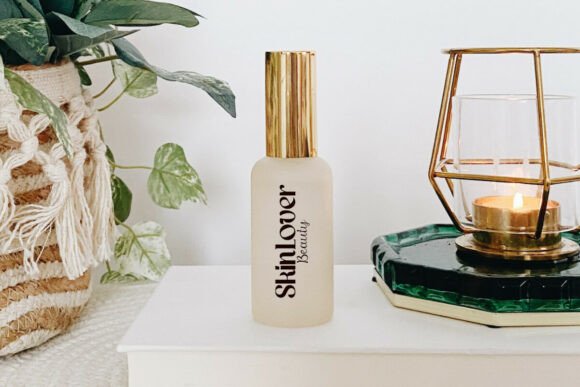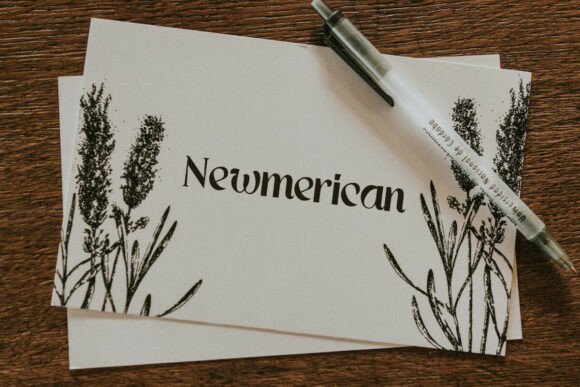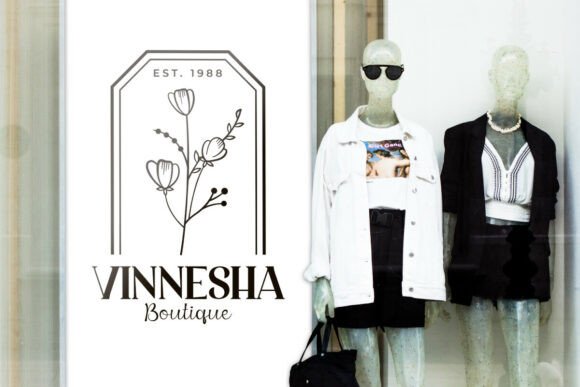
Introduction to Newmerican Font
Newmerican Font is a beautiful, classy serif display font with a stunning look.
This font has a beautiful and elegant look at the same time, with a curve It will be perfect for any designs, such as brand image, cover, custom design, invitation, label, marketing material, poster, product packaging, quote, signage, stationery, web, and many more.
Key Features of Newmerican Font